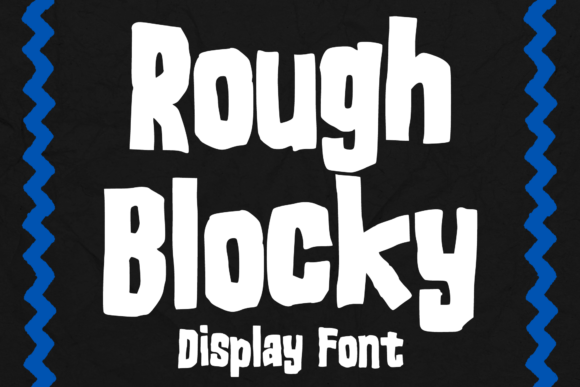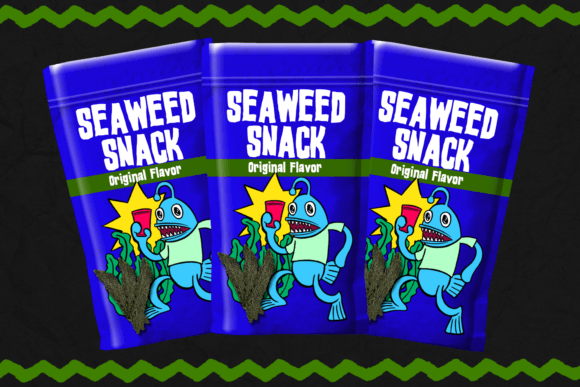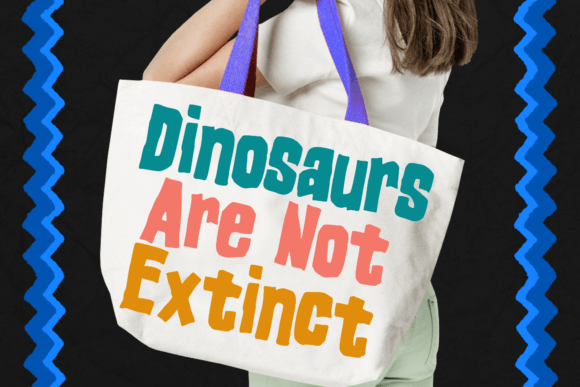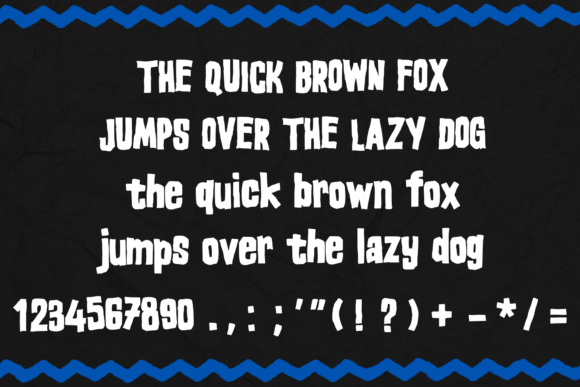
Rough Blocky Font: 90s Retro Display Font for Bold Headlines
About the Rough Blocky Font
We are excited to introduce Rough Blocky Font, a must-have typeface for any serious designer. Rough Blocky is a versatile and playful to use handwritten font, inspired by 90s street art, 90s music and scenes. It will elevate a wide range of design projects to the highest level. You can use this font for many design ideas such as stickers, t-shirt designs, amazing logo designs, magazine or book covers, comics, cartoon drawings, daily typing, and many more. This font will add a super cool touch to your designs!
Rough Blocky’s playful, slightly rebellious energy makes it ideal for headlines, short text blocks on posters, and branding for products targeting a young, urban demographic. It excels in applications like streetwear apparel designs, music-related projects, and bold graphic elements within larger layouts. However, its informal nature makes it unsuitable for body text or user interfaces requiring high readability.
Consider pairing Rough Blocky with a clean sans-serif like Open Sans for contrast and readability in supporting text. For a more vintage feel, a geometric sans-serif such as Futura would create a visually interesting juxtaposition. Alternatively, a simple serif like Merriweather can add a touch of sophistication to balance the font’s rough edges.
The font’s core personality is undeniably bold and youthful, yet retains a friendly approachability. This makes it a versatile choice for projects requiring a balance between informal energy and impactful visual communication.
Rough Blocky Font Usage Examples
Rough Blocky Font Example